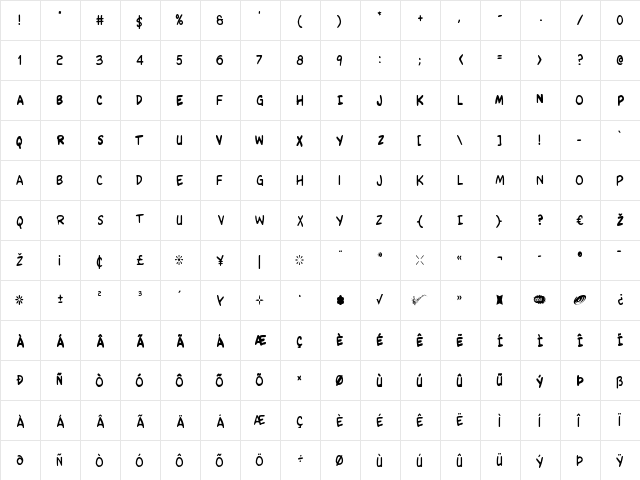
Kangaroo Court Condensed Condensed
Design Context for Kangaroo Court Condensed Typeface
Kangaroo Court Condensed is a composed and adaptable typeface that performs quietly and consistently across a wide range of design contexts. Its narrow stance lets it pack a punch even in space-constrained designs.